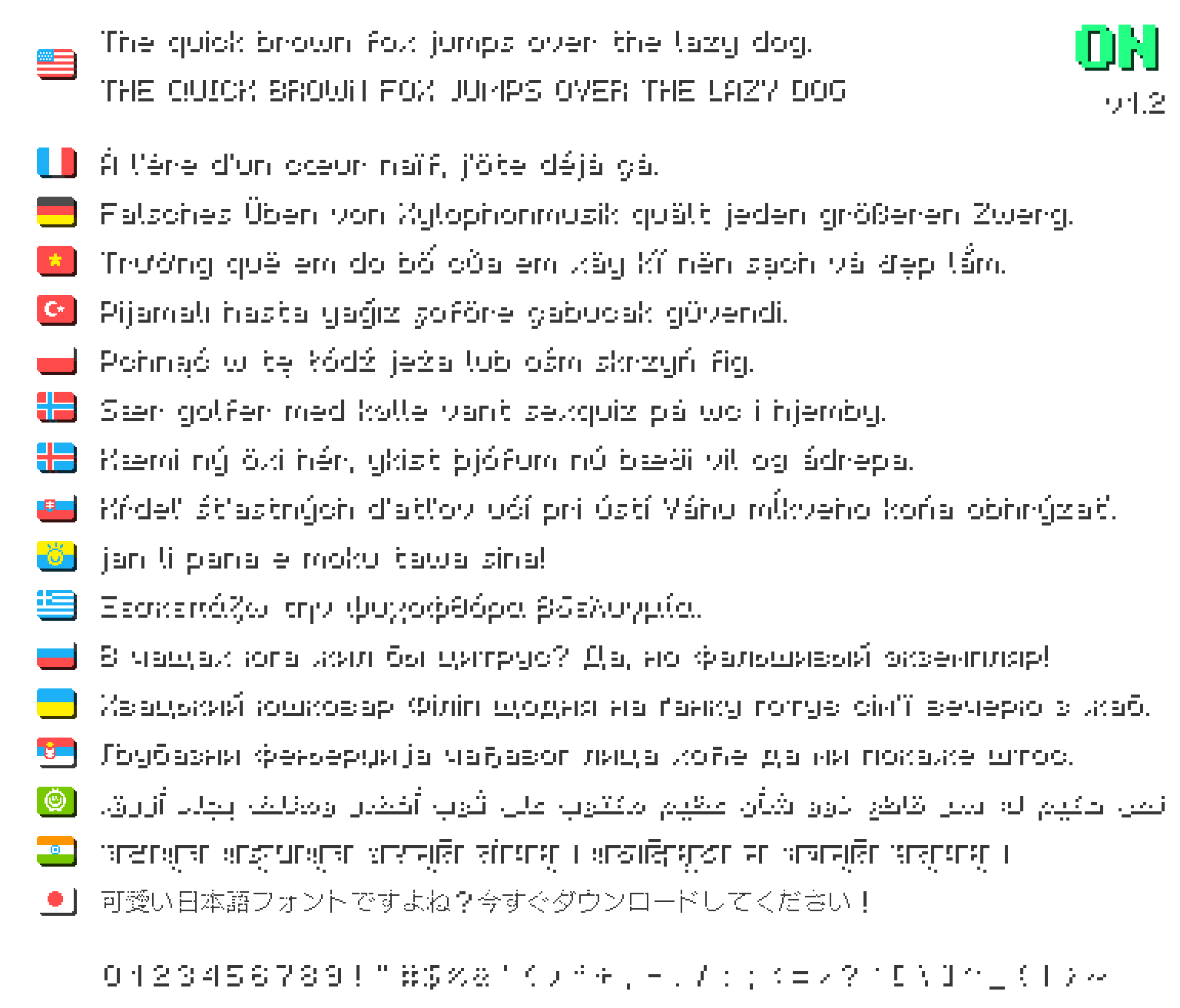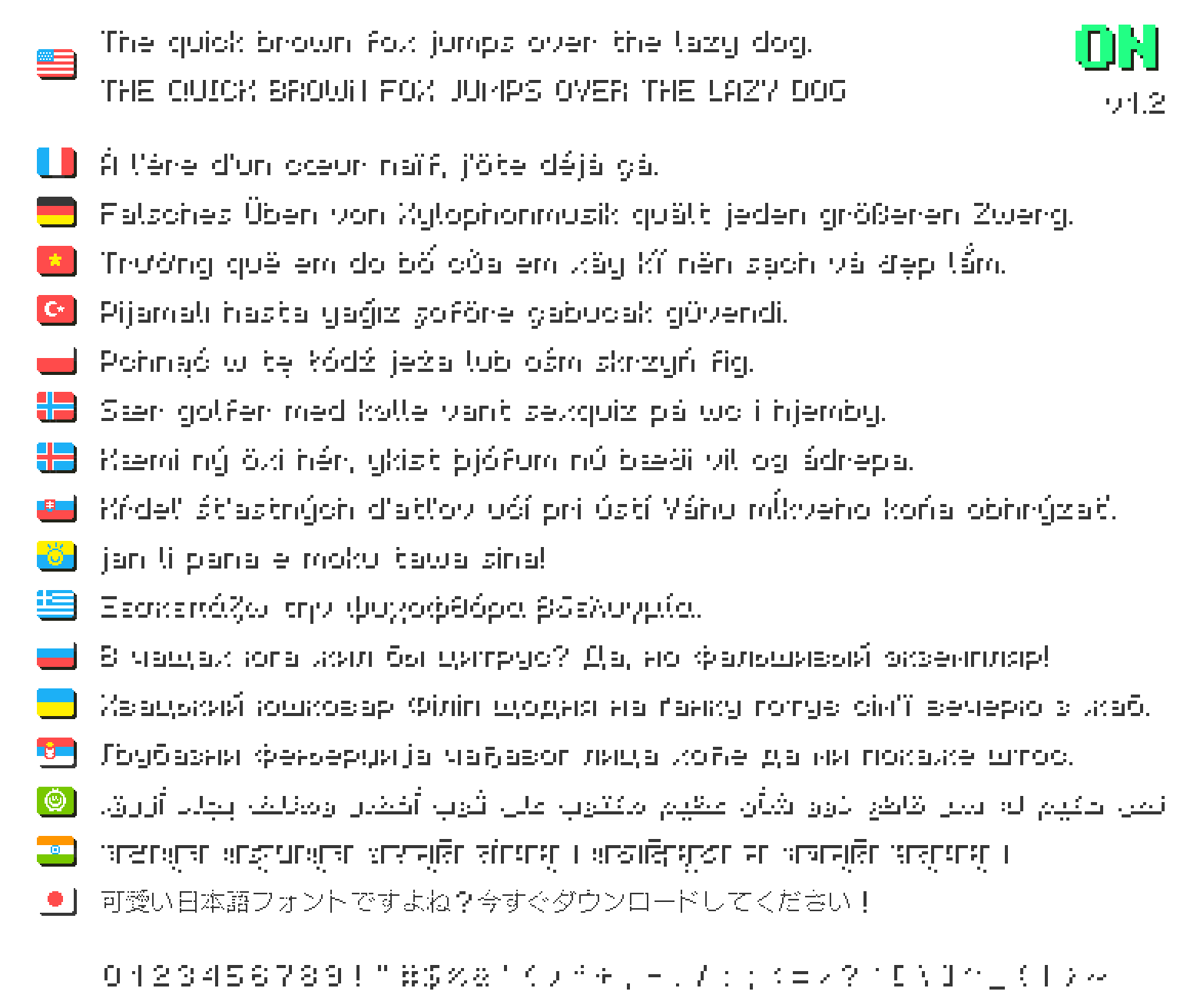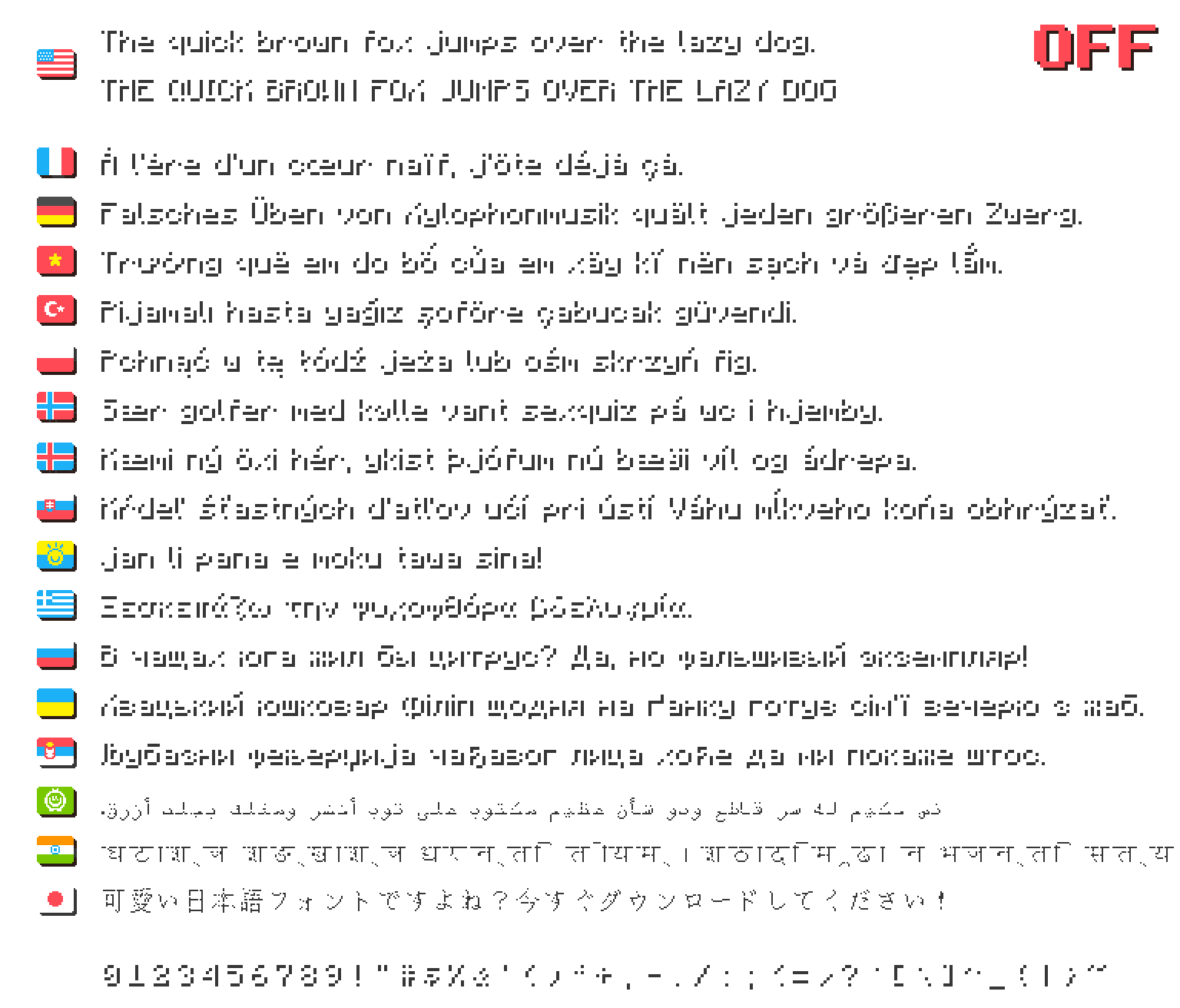
shuriart FontMinecraft resource pack for 26.3
Smooth, rounder font, made to balance the letters and ease legibility, supporting a wide range of letters from Latin, Greek, Cyrillic, Arabic, Devanagari, Japanese, & more!